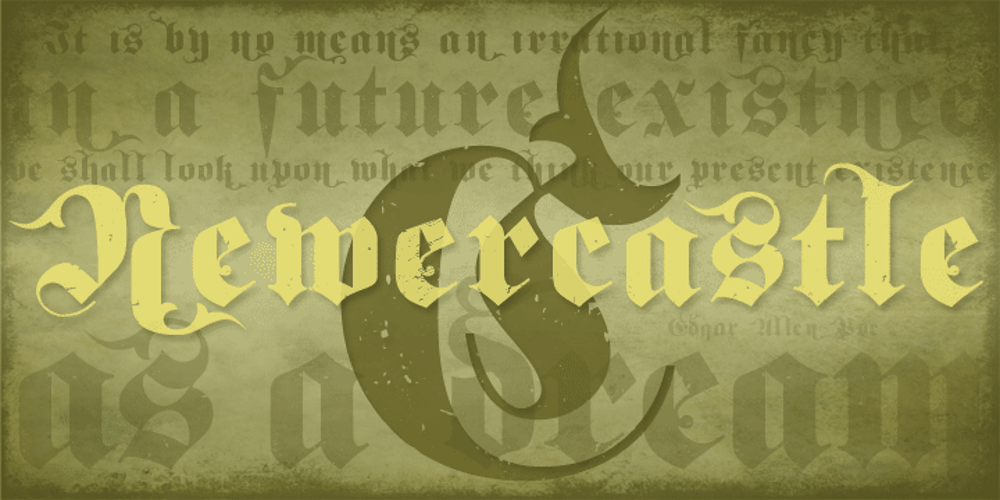
Newercastle Font Family was designed by Chank Diesel, Kevin Hayes and published by Chank. Newercastle contains 1 styles and family package options. Newercastle is the new incarnation of a popular Chank font formerly known as “Newcastle”. A consistent fan favorite since its initial release in 2005, the distressed blackletter font is new and improved. This sinister script is now bulked up with all-new capital letters, a bit of punctuation, and smattering of new crowns, griffins and other heraldic doodads. Designer Kevin Hayes opted for an assortment of gritty old icons instead of more traditional punctuation, because he felt that’s just the way this type of font could perform best for you, the font enthusiast. “At-signs and percentile glyphs just aren’t believable in fraktur-style fonts,” says Kevin. You benefit by getting a bit of clip art with the new font instead of boring old punctuation. Use the new bats indiscriminately to add a regal air to even the most mundane newsletter. Or use layer upon layer to add a rustic richness to a poster project. Enjoy this wicked, textural type and use it with extreme force.